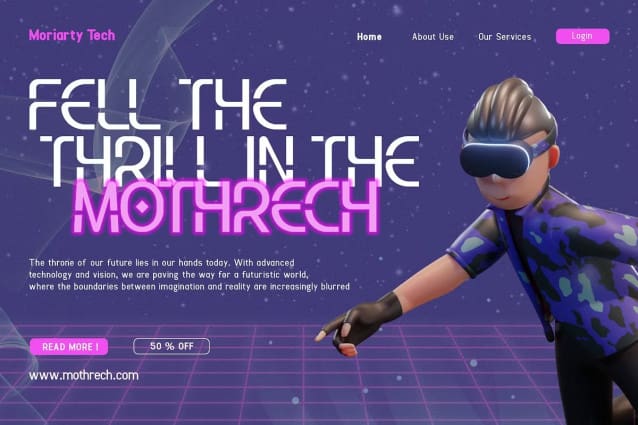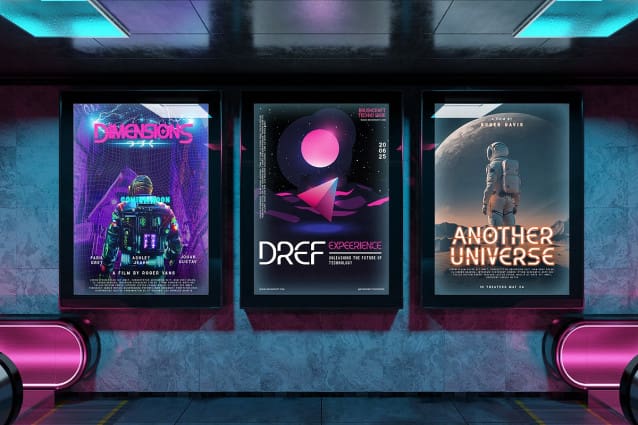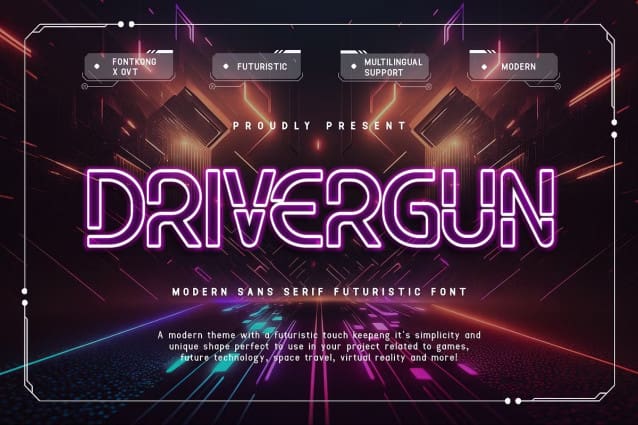
Drivergun Font
Drivergun Font, a cutting-edge modern sans serif font that embodies the essence of futuristic design. Perfect for innovators and visionaries, Drivergun offers a sleek, forward-looking aesthetic that propels text into a new dimension of style.
With its clean, sharp lines and geometric form, Drivergun Font is particularly suited for technology-focused branding, dynamic digital media, and sci-fi themed projects. The font is crafted to ensure high legibility in both print and digital formats, featuring a range of weights, italics, numerals, punctuation, and comprehensive multilingual support to cater to diverse global needs.
Whether you’re designing the next big tech startup logo, creating promotional materials for a futuristic event, or developing user interfaces for cutting-edge apps, Drivergun adds a touch of sophistication and innovation. Its unique character set enhances any text with an ultramodern feel, making it indispensable for projects that aim to look ahead.
Drivergun Font is your ideal sans serif font for making a bold statement with a futuristic twist.